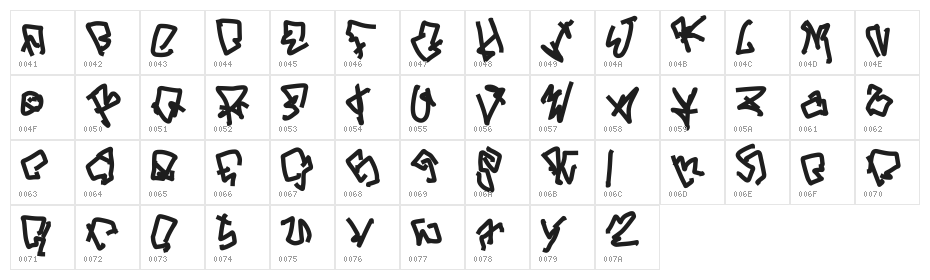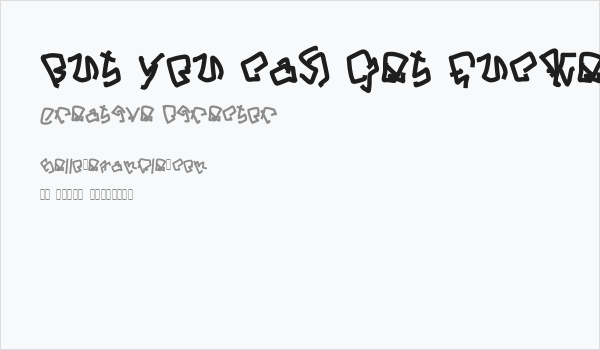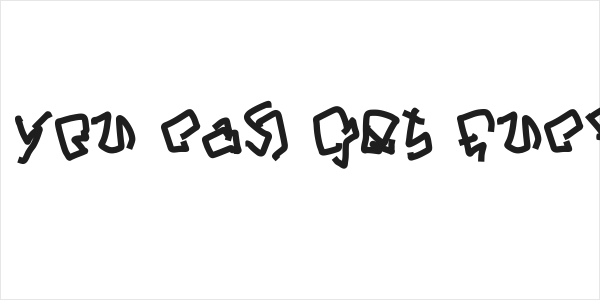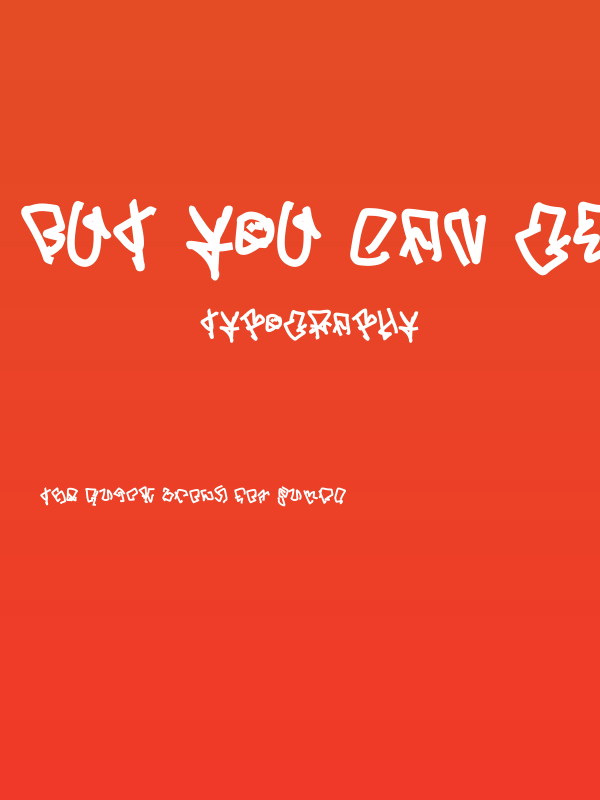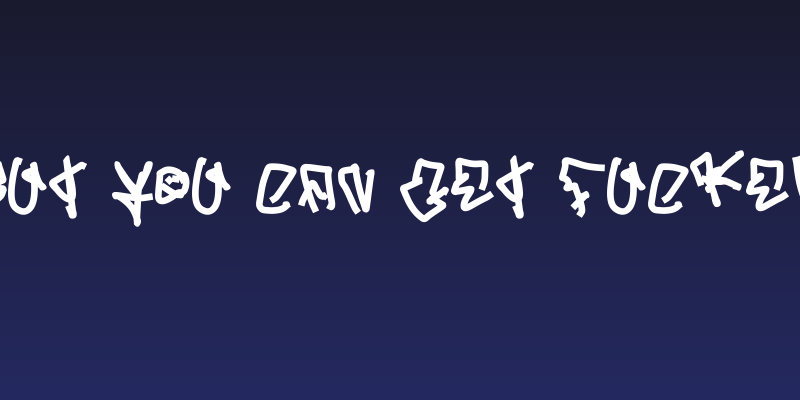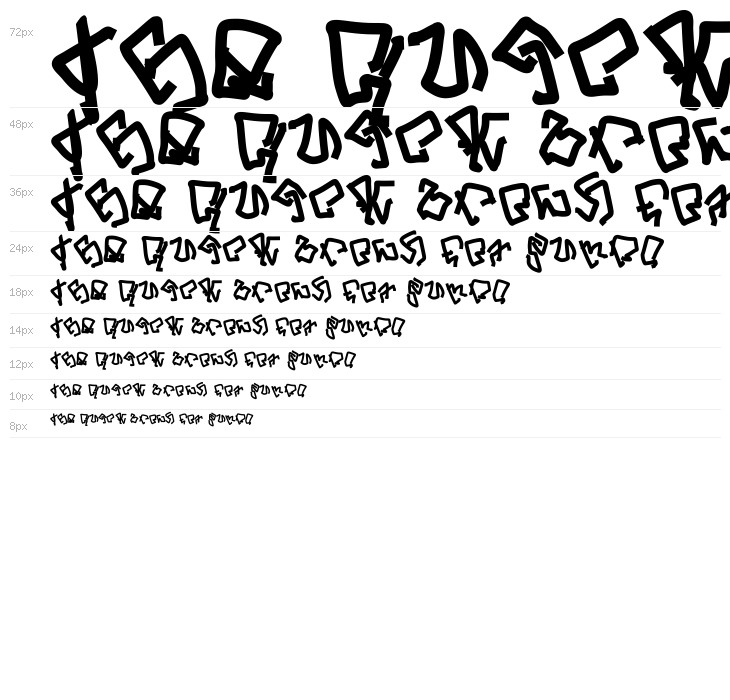
But you can get fucked Font
But you can get fucked Description
This font exhibits a highly stylized, graffiti-inspired aesthetic with bold, angular strokes and a dynamic, energetic feel. The characters are irregular and abstract, creating a sense of movement and spontaneity. The uppercase and lowercase letters share a consistent style, with exaggerated curves and sharp angles. The numbers and special characters maintain this theme, adding to the overall cohesive look. This font is designed to stand out and make a statement, perfect for projects that require a bold and unconventional approach.
| Overall Style | Modern, Urban, Edgy |
| Proposed Projects | Ideal for street art projects, edgy branding, music album covers, and urban-themed posters. |